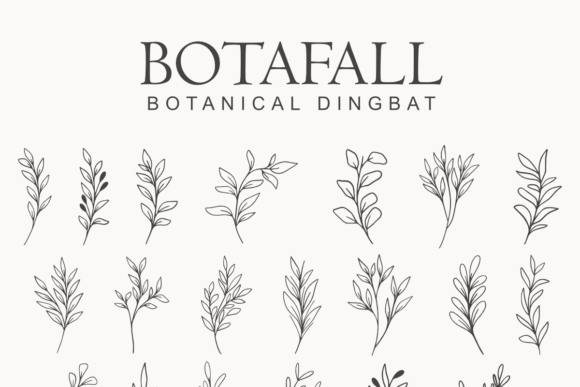
Botafall Font: Elevate Your Craft Projects with a Touch of Autumn
The Botafall Font is a unique and creative dingbat font that features a collection of botanical characters with a fall theme. This font is perfect for crafters, designers, and DIY enthusiasts looking to add a personal touch to their projects. With its extensive range of glyphs, the Botafall Font is ideal for various craft projects, including stickers, decorations, Cricut designs, SVG files, quotes, cards, invitations, logos, keychains, tumblers, and many more.
Key Features of Botafall Font
- Dingbat Font: The Botafall Font is a dingbat font, which means it consists of glyphs or characters that can be used to add visual interest to your projects.
- Botanical Characters: The font features a collection of botanical characters with a fall theme, including leaves, flowers, fruits, and other seasonal elements.
- Extensive Glyph Set: The Botafall Font includes an extensive range of glyphs, making it perfect for various craft projects.
- Perfect for Crafting: The font is designed specifically for crafters, designers, and DIY enthusiasts looking to add a personal touch to their projects.
10 Creative Project Ideas Using Botafall Font
- Stickers: Use the Botafall Font to create custom stickers for your laptop, water bottle, or any other surface.
- Decorations: Add a touch of autumn to your home decor with custom signs, banners, or garlands featuring the Botafall Font.
- Cricut Designs: Use the Botafall Font to create custom Cricut designs for your craft projects, such as paper cutouts, vinyl decals, or iron-on designs.
- SVG Files: Convert the Botafall Font into SVG files for use with your cutting machine or for web design projects.
- Quotes and Cards: Create inspiring quotes, greeting cards, or invitations featuring the beautiful botanical characters of the Botafall Font.
- Logos and Branding: Use the Botafall Font to create custom logos or branding materials for your business or personal project.
- Keychains: Design custom keychains with the Botafall Font for a unique and personalized accessory.
- Tumblers and Mugs: Add a touch of autumn to your drinkware with custom tumblers or mugs featuring the Botafall Font.
- Invitations: Create custom invitations for your fall-themed events, such as harvest parties or Thanksgiving gatherings.
- DIY Crafts: Use the Botafall Font to create custom DIY crafts, such as paper flowers, gift tags, or gift wrapping.
Benefits of Using Botafall Font
- Unique and Creative: The Botafall Font offers a unique and creative way to add visual interest to your craft projects.
- Easily Customizable: The font is easily customizable, allowing you to adjust the size, color, and style to fit your project’s needs.
- Time-Saving: The Botafall Font saves you time and effort by providing a pre-designed set of glyphs that can be used in various projects.
- Scalable: The font is scalable, making it perfect for use in various projects, from small stickers to large banners.
Tips and Tricks for Using Botafall Font
- Experiment with Colors: Try out different color combinations to find the perfect match for your project.
- Mix and Match Glyphs: Combine different glyphs to create unique and interesting designs.
- Adjust Font Size: Adjust the font size to fit your project’s needs, from small details to large headings.
- Use with Other Fonts: Combine the Botafall Font with other fonts to create visually appealing and interesting designs.
The Botafall Font is a versatile and creative dingbat font that is perfect for crafters, designers, and DIY enthusiasts. With its extensive range of glyphs and easy customizability, this font is ideal for various craft projects, from stickers and decorations to logos and branding materials. Whether you’re looking to add a touch of autumn to your projects or create unique and personalized gifts, the Botafall Font is the perfect choice.